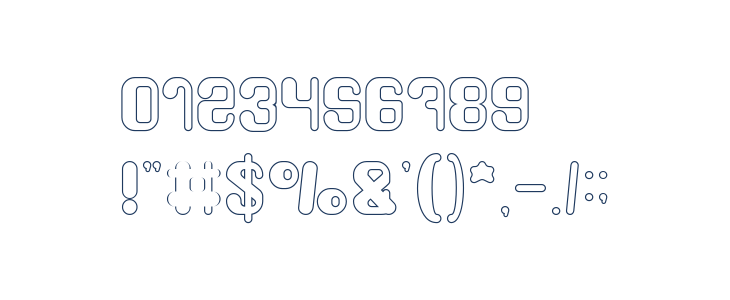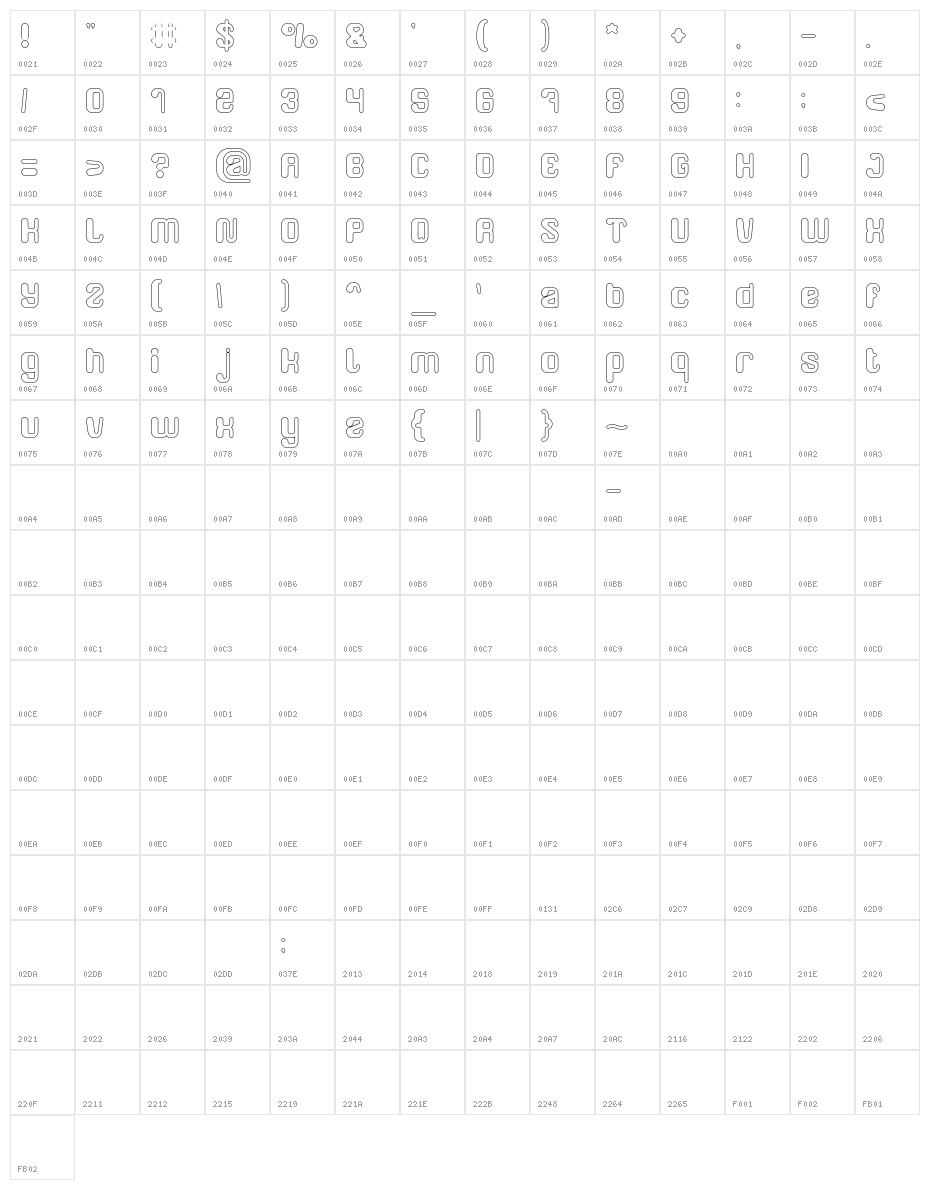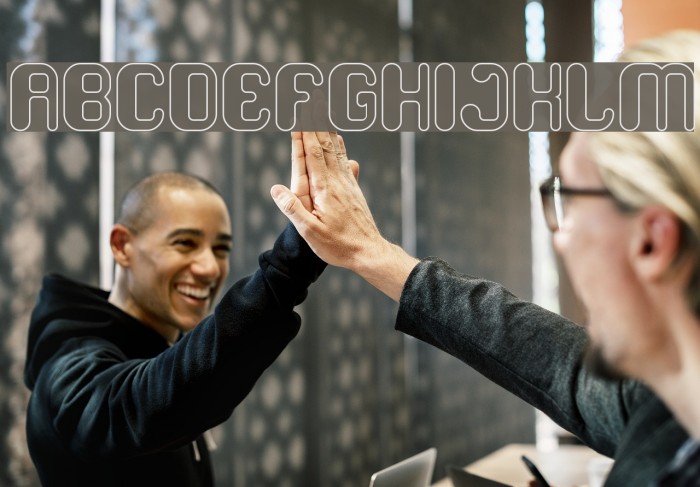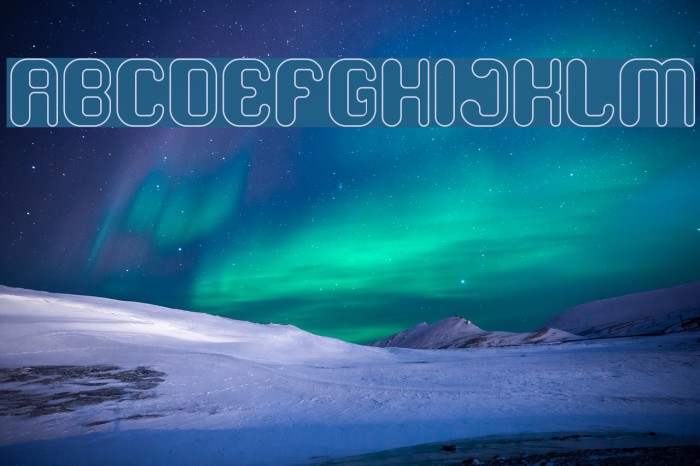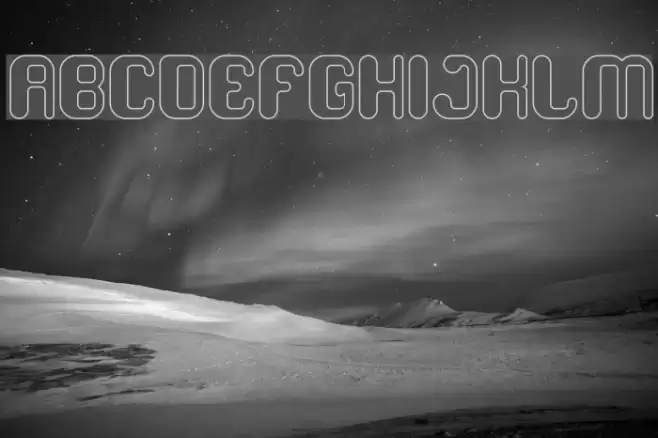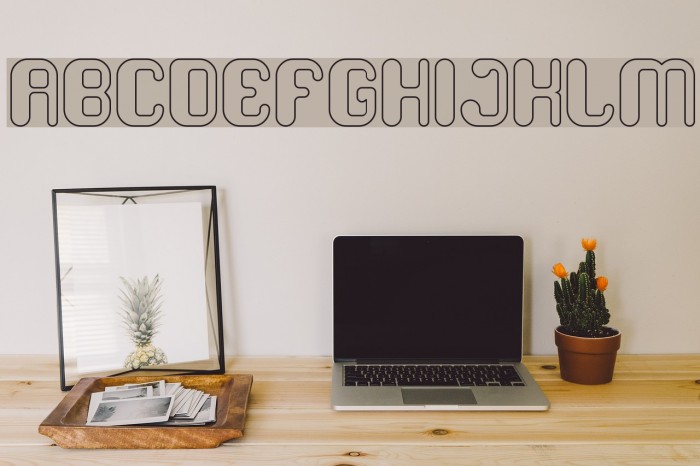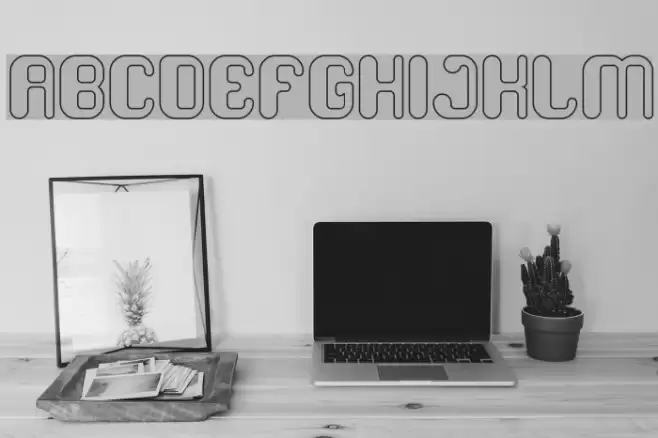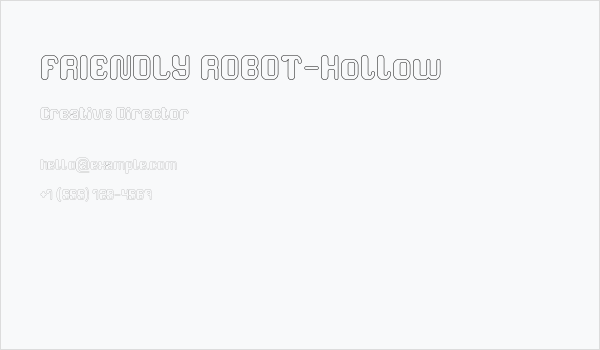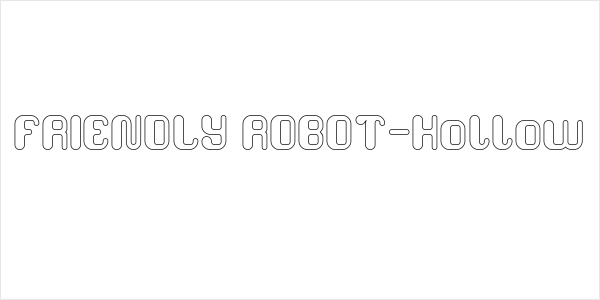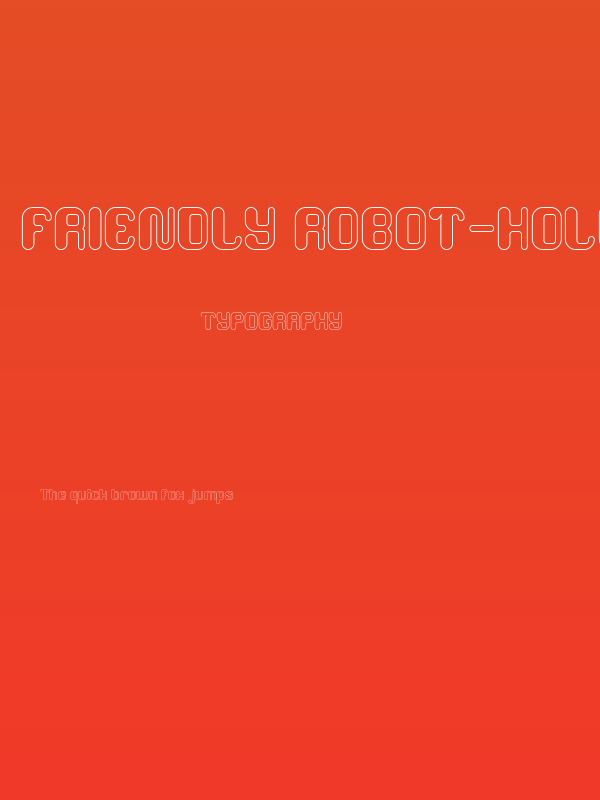
FRIENDLY ROBOT-Hollow Font
FRIENDLY ROBOT-Hollow Description
This font features a hollow, outlined style with rounded edges, giving it a friendly and approachable appearance. The characters are uniform in width, with a consistent stroke that creates a clean and modern look. The uppercase and lowercase letters maintain a similar structure, enhancing readability. The numerals and special characters are designed to match the overall aesthetic, making the font versatile for various uses. Its playful yet structured design makes it suitable for projects that require a touch of creativity while maintaining clarity.
| Proposed Projects | Ideal for children's books, playful branding, tech-themed designs, and creative posters. |